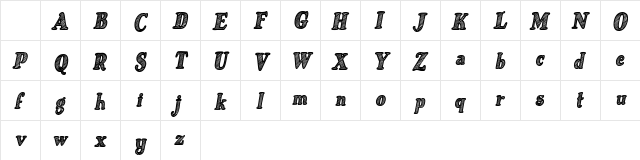
Just Mandrawn Italic is a composed and adaptable typeface that performs quietly and consistently across a wide range of design contexts. The slanted form adds forward momentum and visual energy.
Pro Tip: Use Just Mandrawn Italic for emphasis, pull quotes, and subheadings where its slanted energy can add rhythm to the layout.